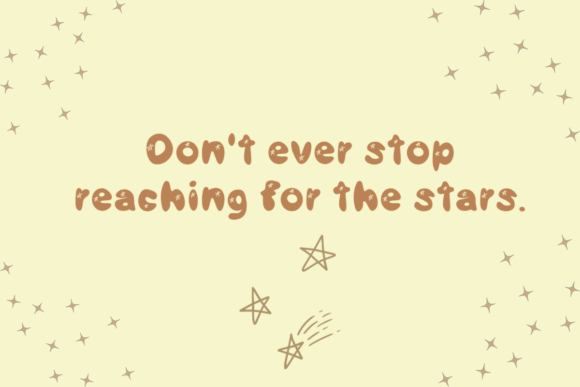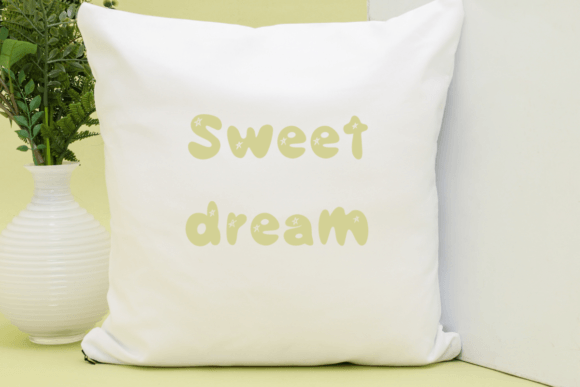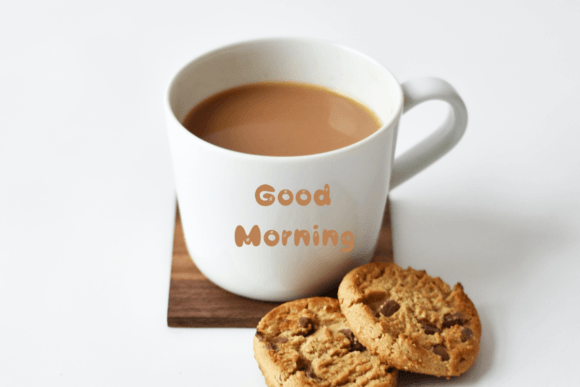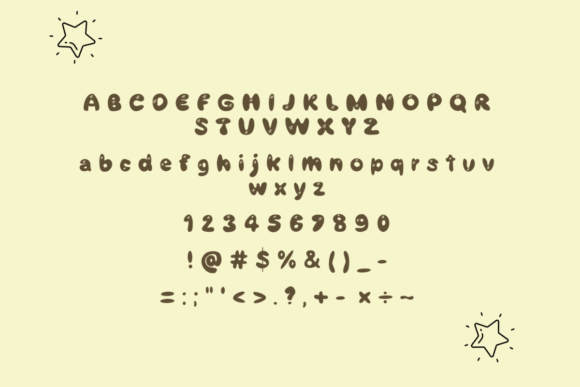
Shining Bright: The Magic of All Star Font
Have you ever found yourself in the midst of a creative storm, brainstorming ideas for the perfect project? The blank page stares back at you, waiting for that spark that will bring your vision to life. For designers, this moment is all too familiar. But what happens when you need that extra oomph to make your design truly special?
Enter All Star Font, a decorative font that’s sure to shine bright and capture hearts. With its star decoration, this font is perfect for projects related to Cute, Love, and Kid. Whether you’re creating a birthday card, designing a flyer, or crafting a social media post, All Star Font is the perfect addition to take your design to the next level.
For designers, All Star Font is a valuable asset that can add a touch of whimsy and personality to any project. Its versatility makes it a go-to choice for a wide range of applications, from book titles to banners. With All Star Font, you can unleash your creativity and make your designs truly stand out from the crowd.
- Font Family: All Star Font is a sans-serif font family.
- Unique Characteristics: Features a bold and modern design with rounded corners and a subtle italic style.
All Star Font Review
I’ve had the chance to work with the “All Star Font” on a few projects, and I have to say, it’s a unique choice. While it’s not for everyone, there are some aspects that I think shine ✨.
Here are some of the things I like about the “All Star Font”:
- Highly recognizable: This font is instantly recognizable, thanks to its bold, playful design.
- Fun and energetic vibe: It’s perfect for projects that need a bit of a lighthearted touch.
- Works well in bold: When used in bold, the font really comes alive and grabs attention.
Of course, no font is perfect, and the “All Star Font” has its limitations ⚠️:
- May be too loud: Some people might find the font too over-the-top, especially when used in large quantities.
- Not ideal for formal projects: If you’re working on a serious or professional project, this font might not be the best choice.
- Difficult to pair with other fonts: The “All Star Font” is quite bold, so it can be tricky to pair with other fonts without the design feeling disjointed.
Overall, I think the “All Star Font” is a great choice for the right project. It’s perfect for anyone looking to add a bit of fun and personality to their design. Just be mindful of its limitations, and you’ll be golden!
The All Star Font is commonly used in sports-themed designs, such as posters, flyers, and jerseys. It’s also used in titles and headings for a bold and eye-catching effect.
To get the most out of the All Star Font, use it sparingly and in bold headings or titles. You can also pair it with other fonts to create a unique and eye-catching design. Experiment with different font sizes and styles to find the perfect combination for your project.